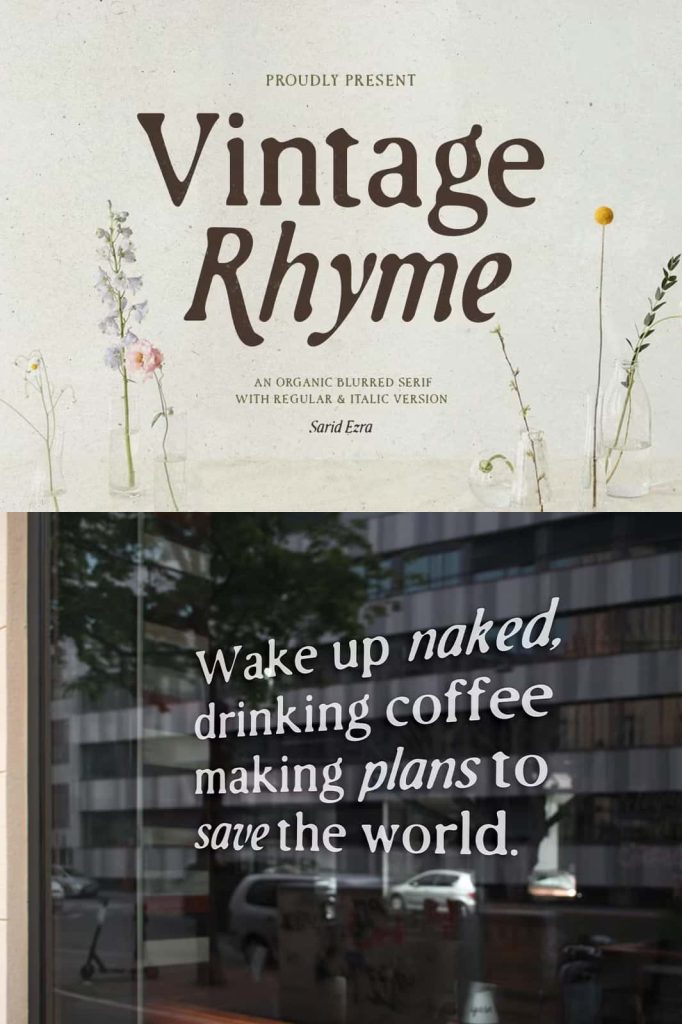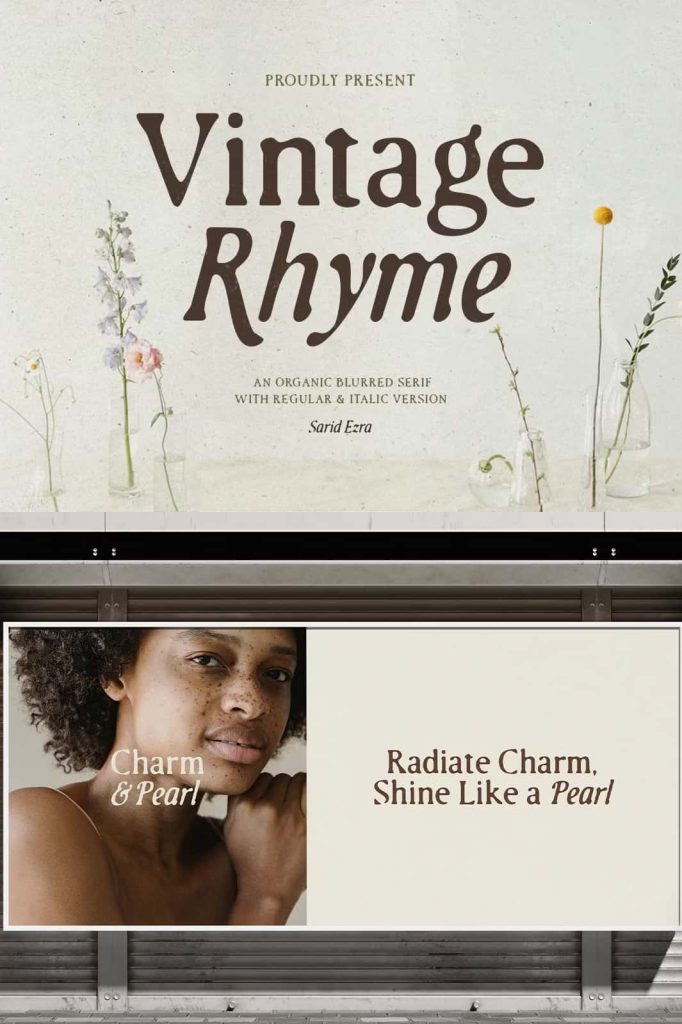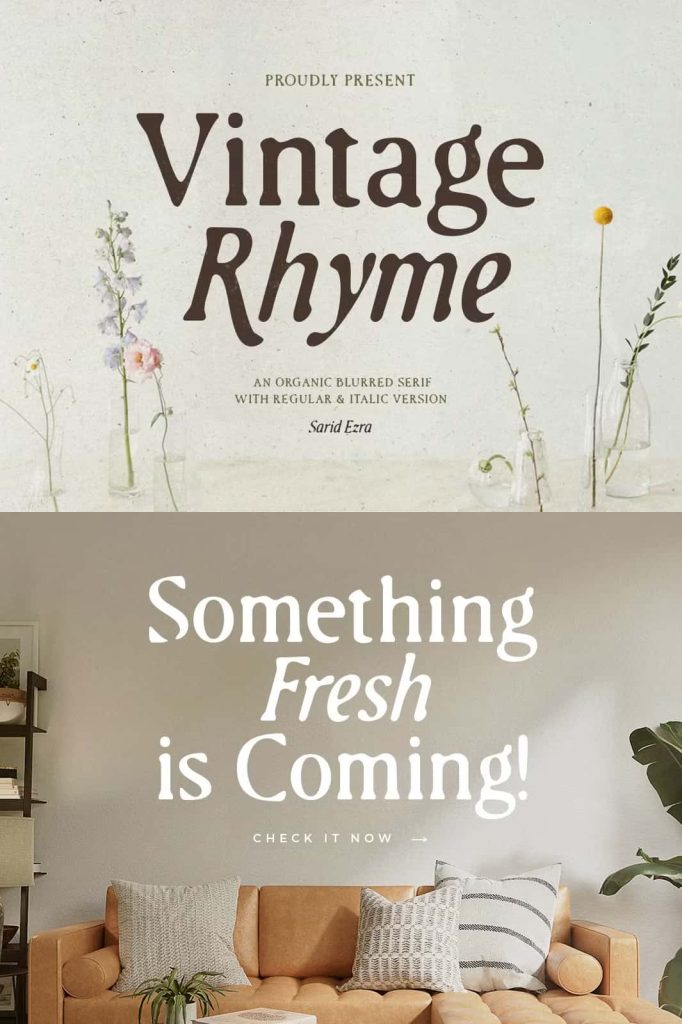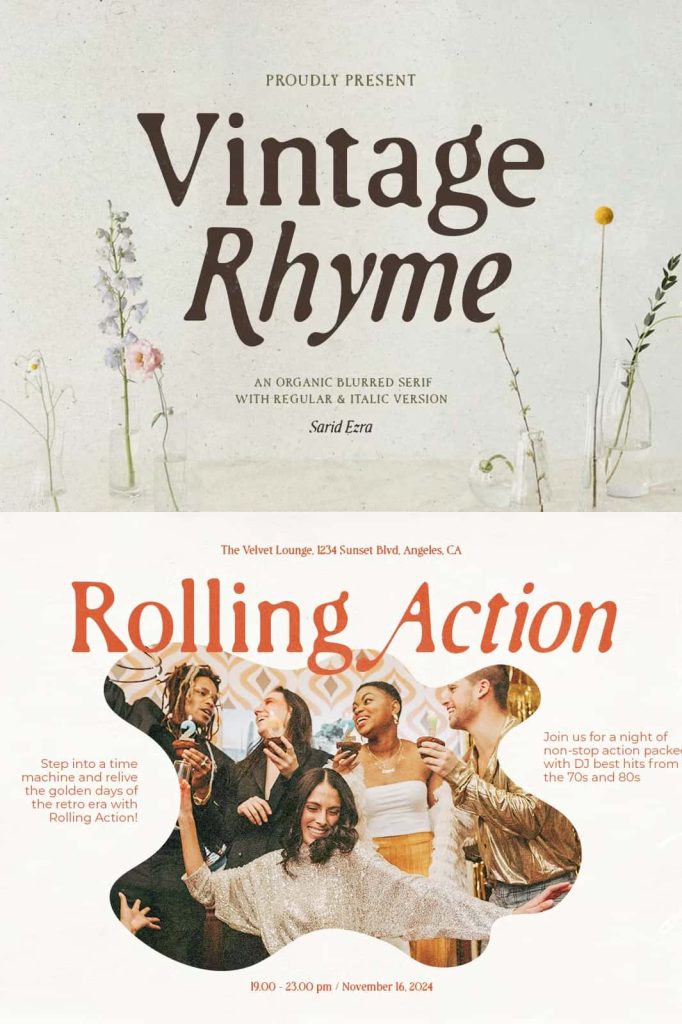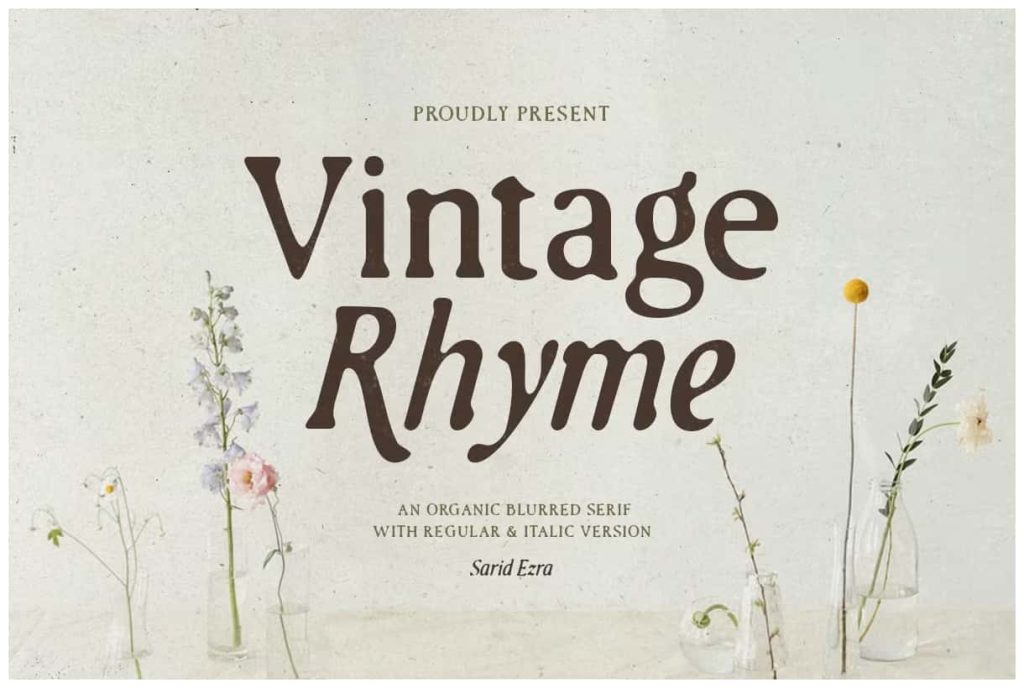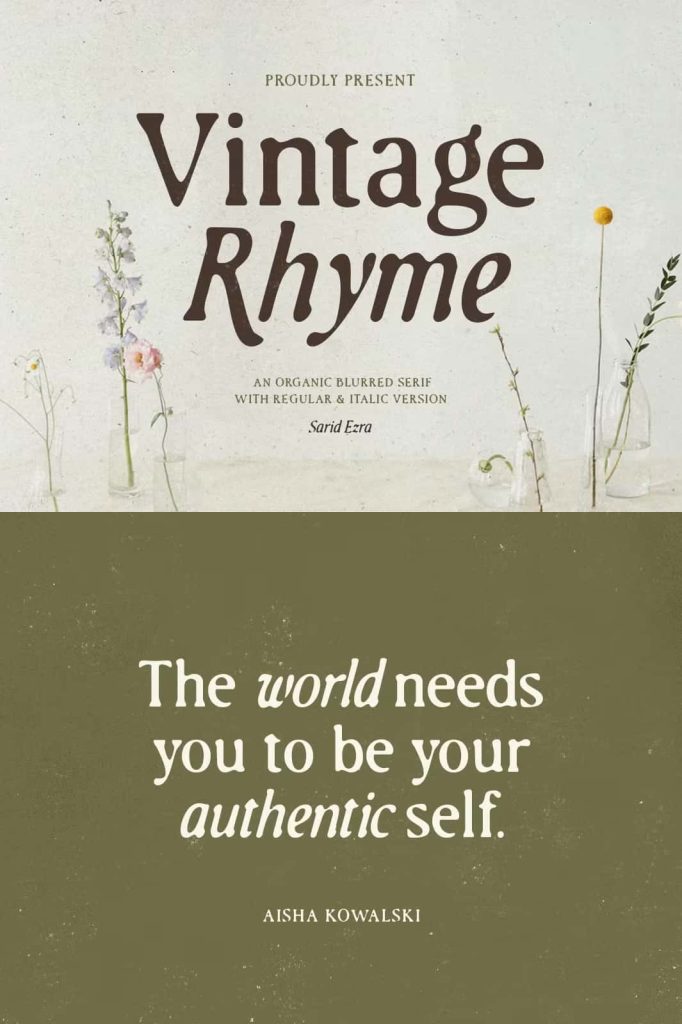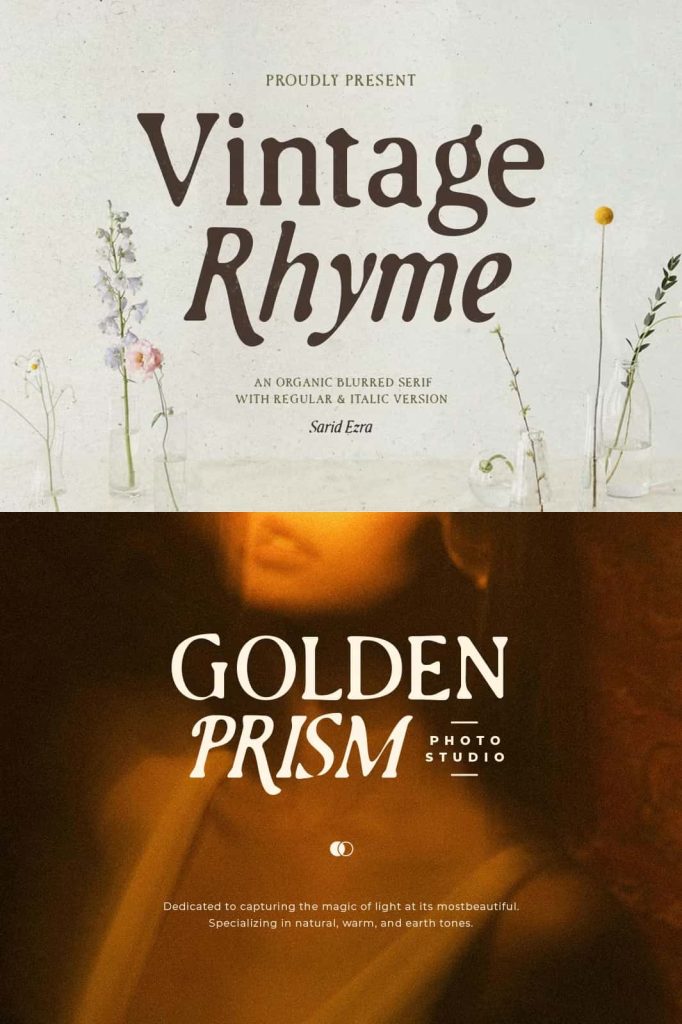
Vintage Rhyme is a serif family that have natural and blurred organic looks. With regular and italic version, you can combine them to make your design more stunning.